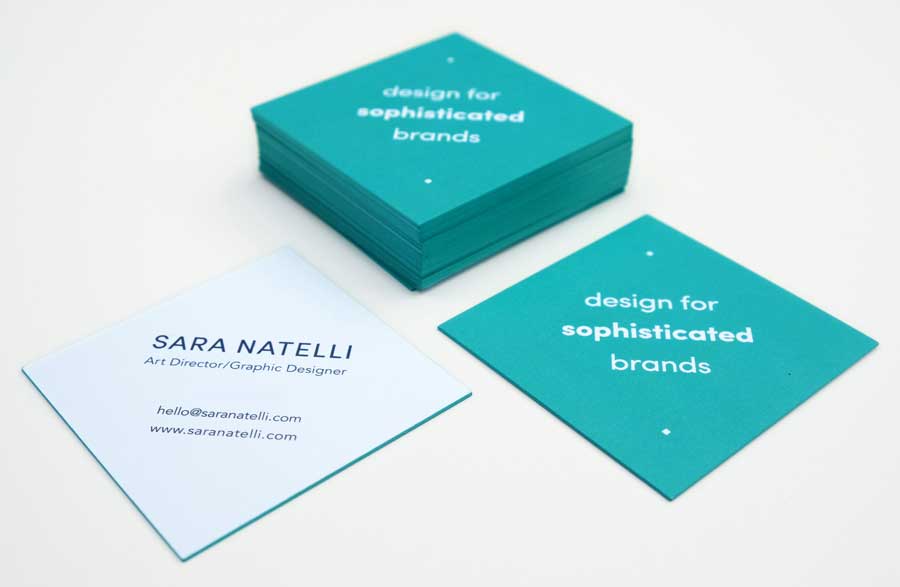
Freelance Graphic Designer Sara Natelli
Sara is a freelance graphic designer who specializes in layout and concept design, brand identity, custom event stationery and cards.
Sara was an in-house graphic designer for nearly nine years. During that time, she had limited exposure to different types of fonts and how to use them because she was working with one brand in a fast-paced environment. Given strict brand guidelines, she had minimal creative freedom and lacked opportunity for exploration.
Résumé and business card: before and after.
Sara is a self-described “seasoned graphic designer with a zest for ideas, collaboration, color, typography, and a touch of serendipitous flavor which evolves in the design process,” working as a freelance designer in Orange County, California. When she first started working with us, she was working in-house.
“TypeEd has been highly influential in my transition to freelance” says Sara. “ Through the Varsity Team and TypeEd workshops, I learned so much about the art of typography and refreshed my memory on skills I hadn't used for several years in a supportive and positive environment.”
Because of her involvement with the TypeEd community, Sara says she’s “definitely giving much more thought to typography as a result, and grateful that my path lead me to TypeEd. I had been looking for mentors like Michael and Rachel for a long time and thankful for all the hard work they put into keeping the craft of typography and design strong.”
“I learned so much about the art of typography and refreshed my memory on skills I hadn’t used for several years in a supportive and positive environment.”
Use the slider to see Sara's résumé and business card before she started working with us, and after. She was able to communicate a contemporary and sophisticated look.
Sara’s printed business cards.